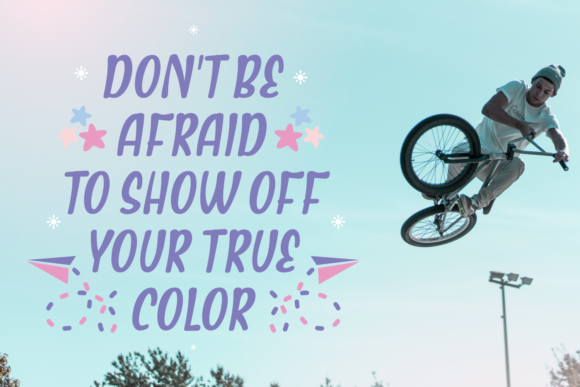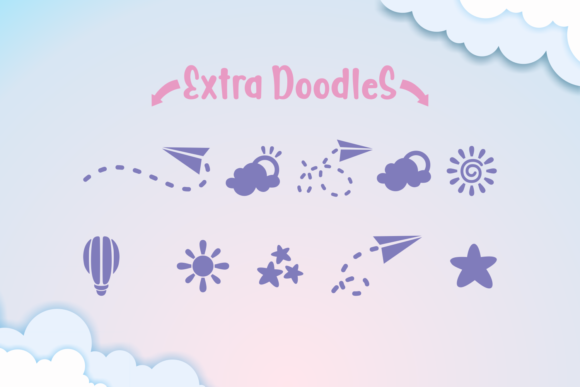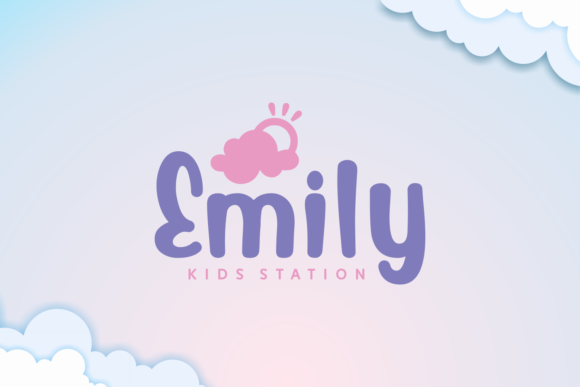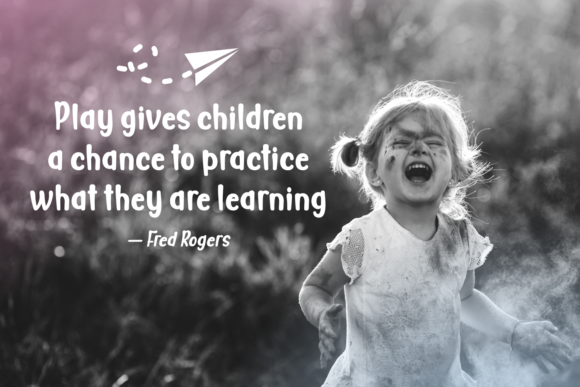
Introducing Cloud Dear Font: The Fluffy and Adorable Typeface for Your Designs
Are you tired of using the same old fonts in your designs? Do you want to add a touch of whimsy and fun to your projects? Look no further than Cloud Dear Font, a beautiful and adorable typeface that’s sure to delight. With its fluffy feel and charming aesthetic, Cloud Dear is the perfect font for designers and crafters who want to add a little extra something special to their work.
What is Cloud Dear Font?
Cloud Dear Font is a unique and eye-catching typeface that’s designed to bring a smile to your face. Its soft, rounded edges and puffy texture give it a distinctly fluffy feel that’s reminiscent of cotton candy or a warm cloud. This font is perfect for designs that need a playful and fun touch, from children’s party invitations to social media graphics and more.
Features of Cloud Dear Font
So what makes Cloud Dear Font so special? Here are just a few of its standout features:
- Unique and playful design: Cloud Dear Font has a one-of-a-kind look that’s sure to turn heads. Its fluffy texture and rounded edges make it a standout among other fonts.
- Highly versatile: Whether you’re designing a children’s book, a craft project, or a social media graphic, Cloud Dear Font is the perfect choice. Its playful vibe works well for a wide range of design ideas.
- Easy to read: Despite its whimsical design, Cloud Dear Font is still highly legible. This makes it a great choice for designs that need to convey a message or tell a story.
- Perfect for crafters and designers: Cloud Dear Font is a great choice for anyone who loves crafting, scrapbooking, or designing. Its playful vibe works well for handmade projects and DIY designs.
How to Use Cloud Dear Font
So how can you use Cloud Dear Font in your designs? Here are a few ideas to get you started:
- Children’s party invitations: Cloud Dear Font is perfect for kids’ party invitations, with its playful and fun vibe.
- Social media graphics: Add a touch of whimsy to your social media graphics with Cloud Dear Font. It’s a great way to make your posts stand out.
- Craft projects: Cloud Dear Font is a great choice for crafters who love scrapbooking, card-making, or other paper crafts.
- Children’s book illustrations: If you’re illustrating a children’s book, Cloud Dear Font is a great choice for adding text and captions.
Tips for Getting the Most Out of Cloud Dear Font
Here are a few tips for using Cloud Dear Font effectively in your designs:
- Pair it with other playful fonts: Cloud Dear Font works well when paired with other playful fonts. Try combining it with a bold font for a fun and playful look.
- Use it in moderation: While Cloud Dear Font is adorable, it can be overwhelming if used too much. Use it sparingly to add a touch of whimsy to your designs.
- Experiment with colors: Cloud Dear Font looks great in a variety of colors. Experiment with different hues to find the perfect look for your design.
Cloud Dear Font is a beautiful and adorable typeface that’s perfect for designers and crafters who want to add a touch of whimsy to their work. With its fluffy feel and playful vibe, it’s sure to delight. Whether you’re designing a children’s party invitation or a social media graphic, Cloud Dear Font is a great choice. So why not give it a try and see how it can add a little extra magic to your designs?